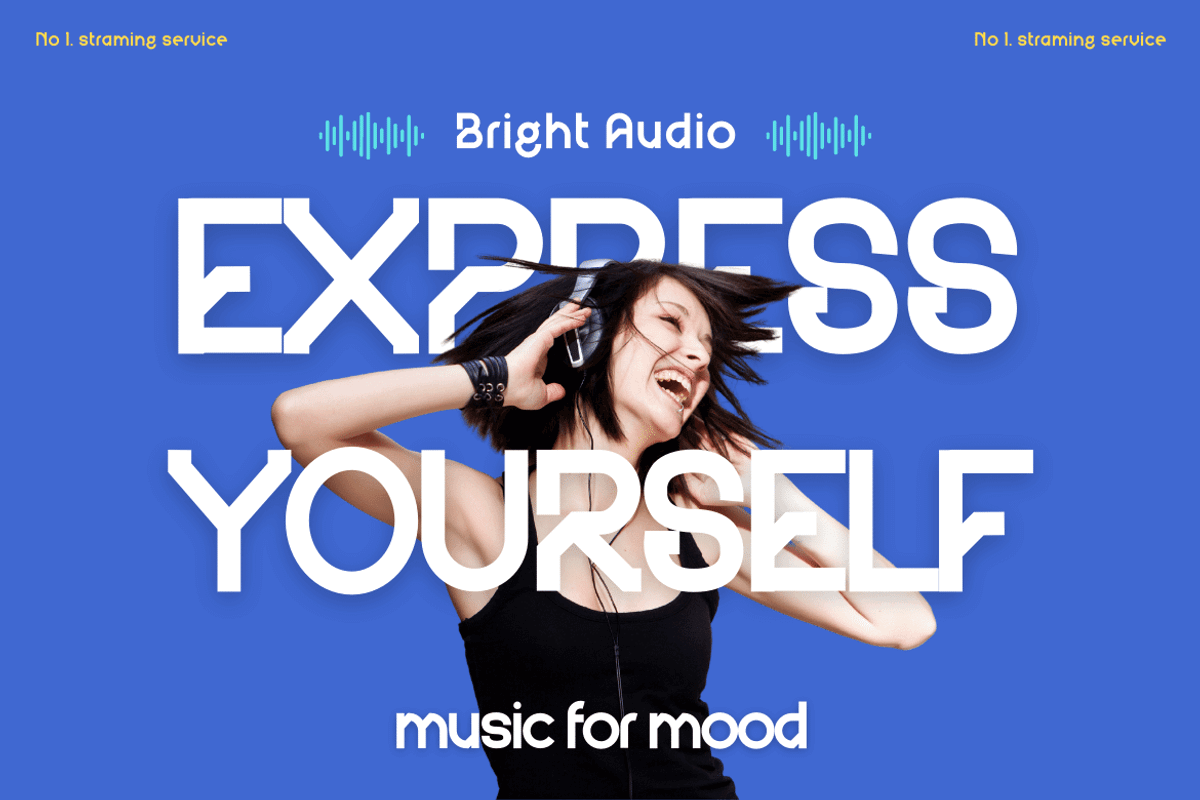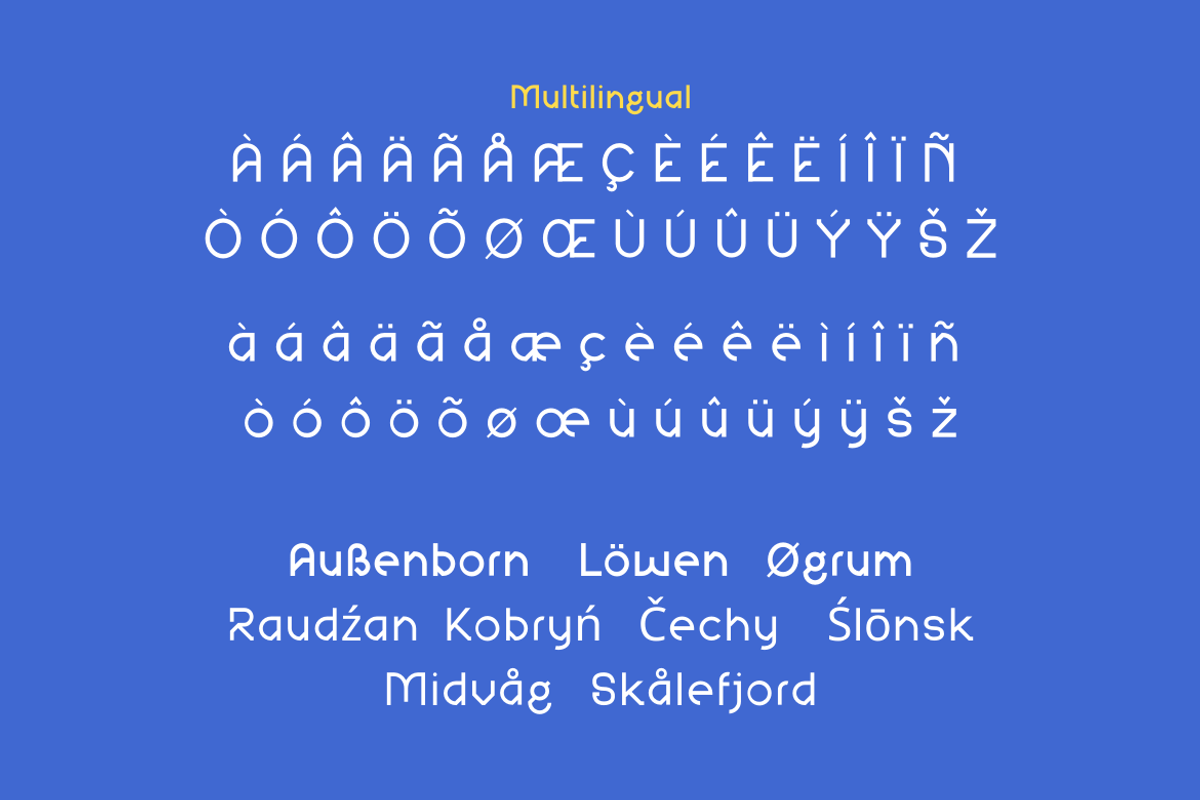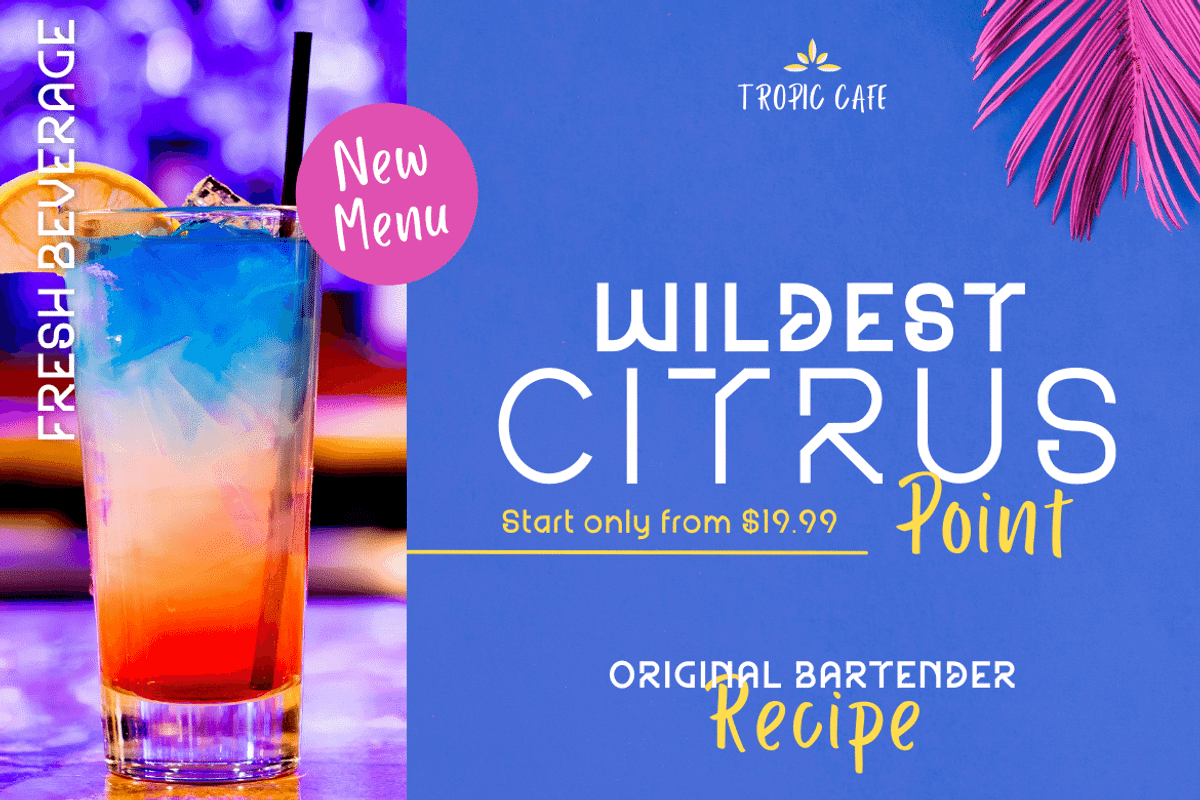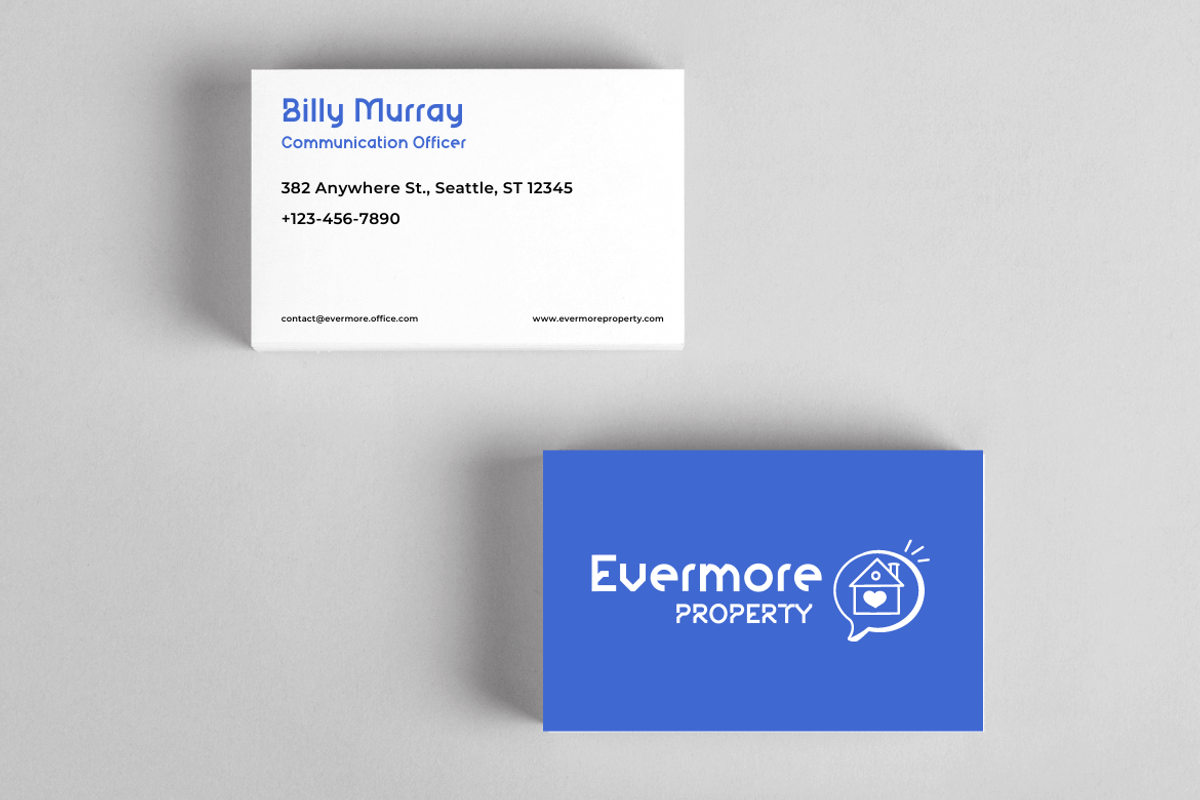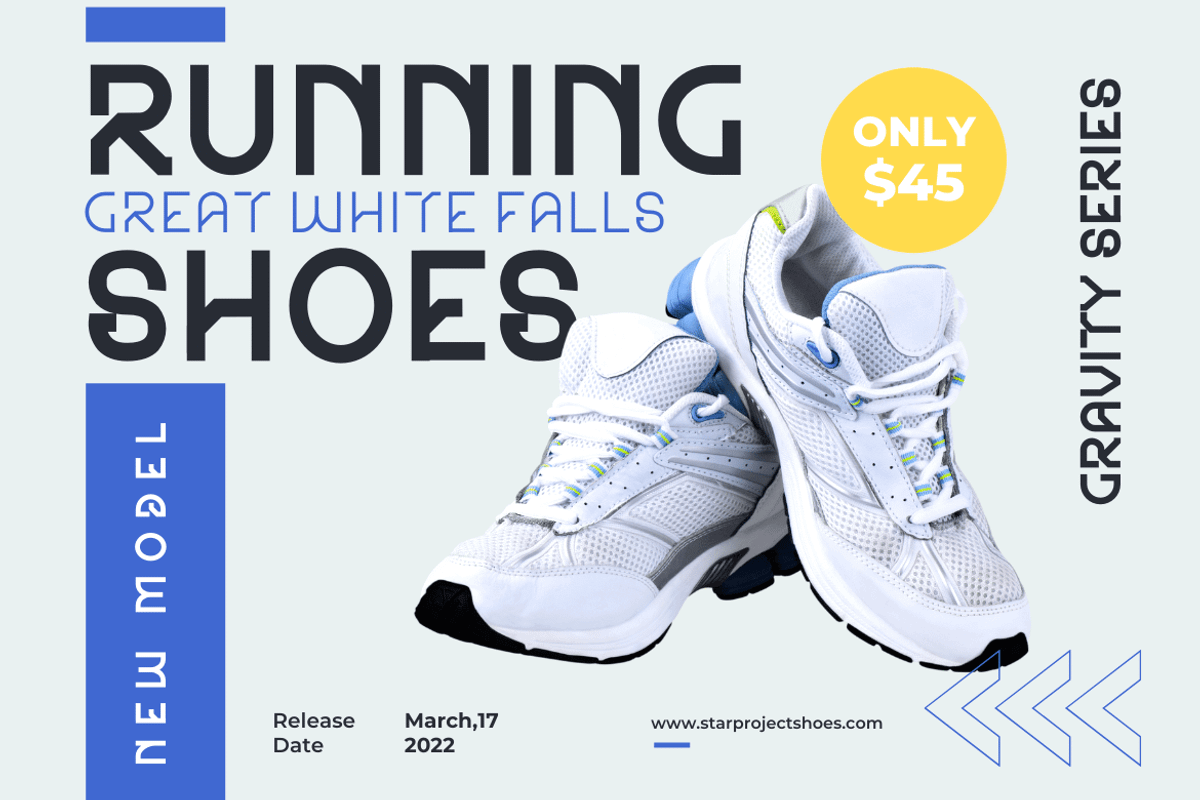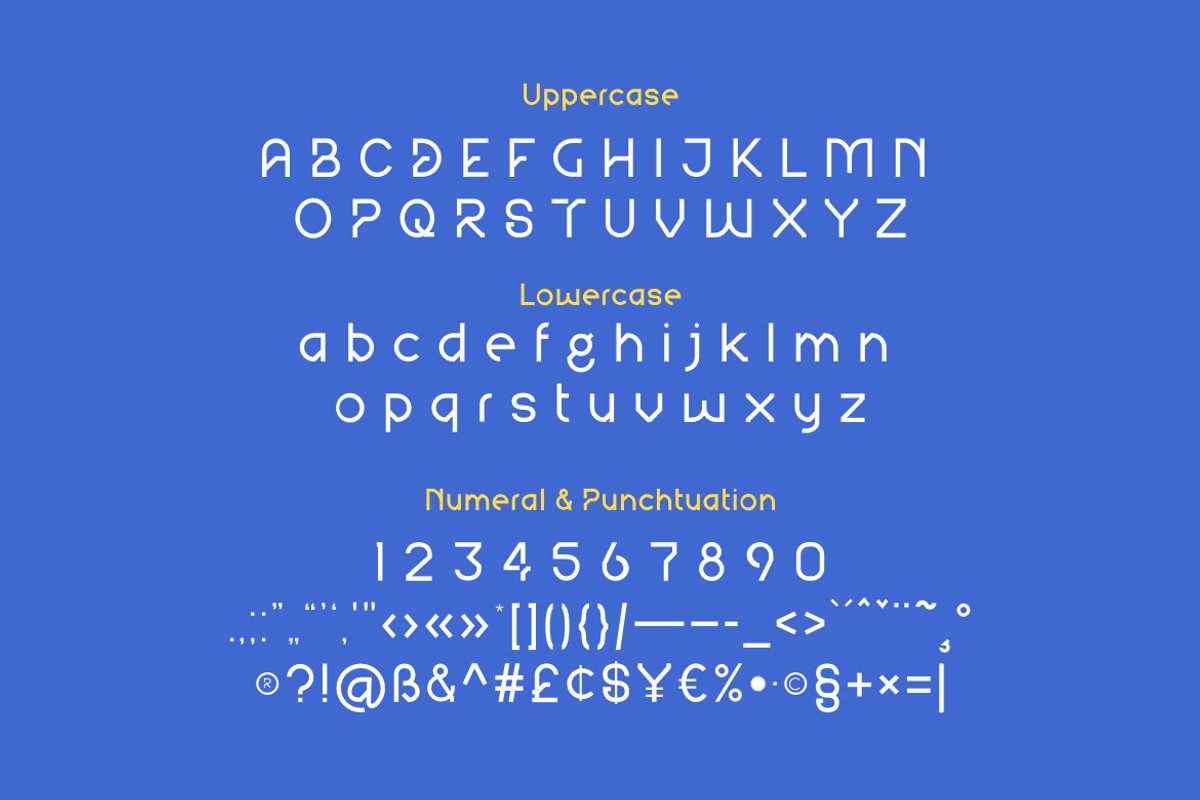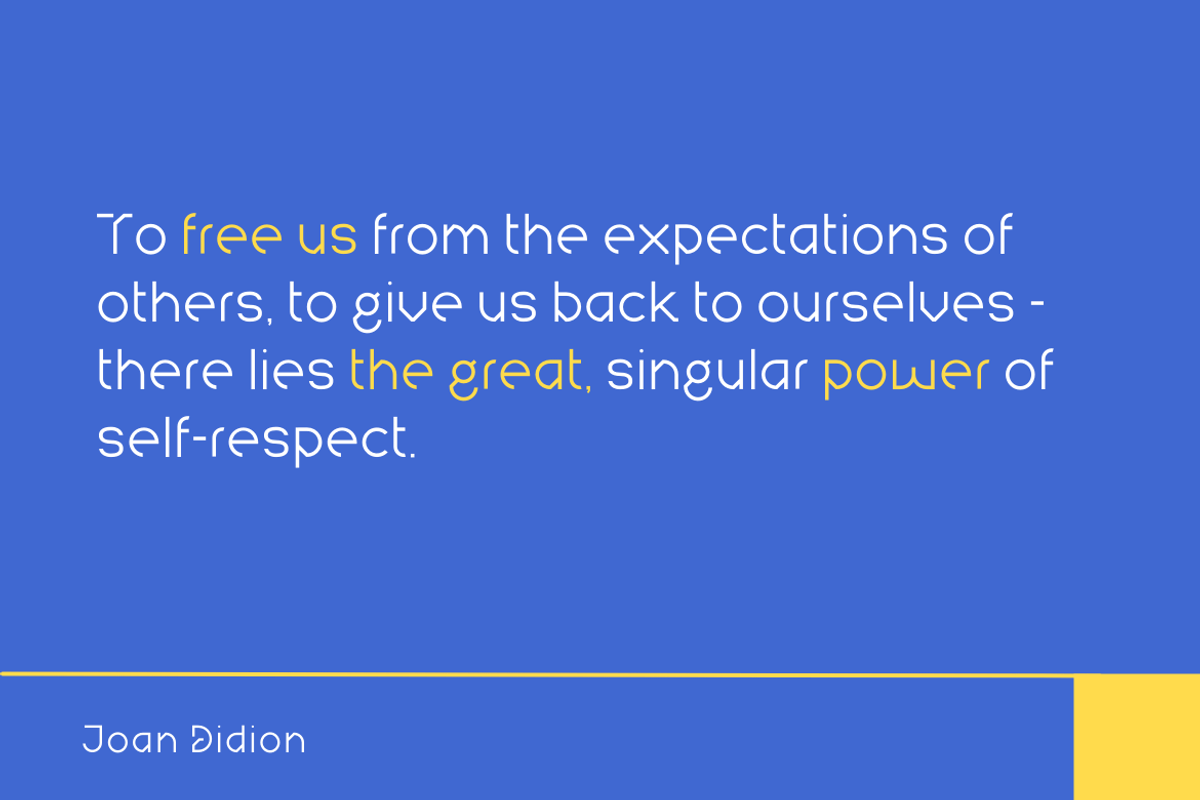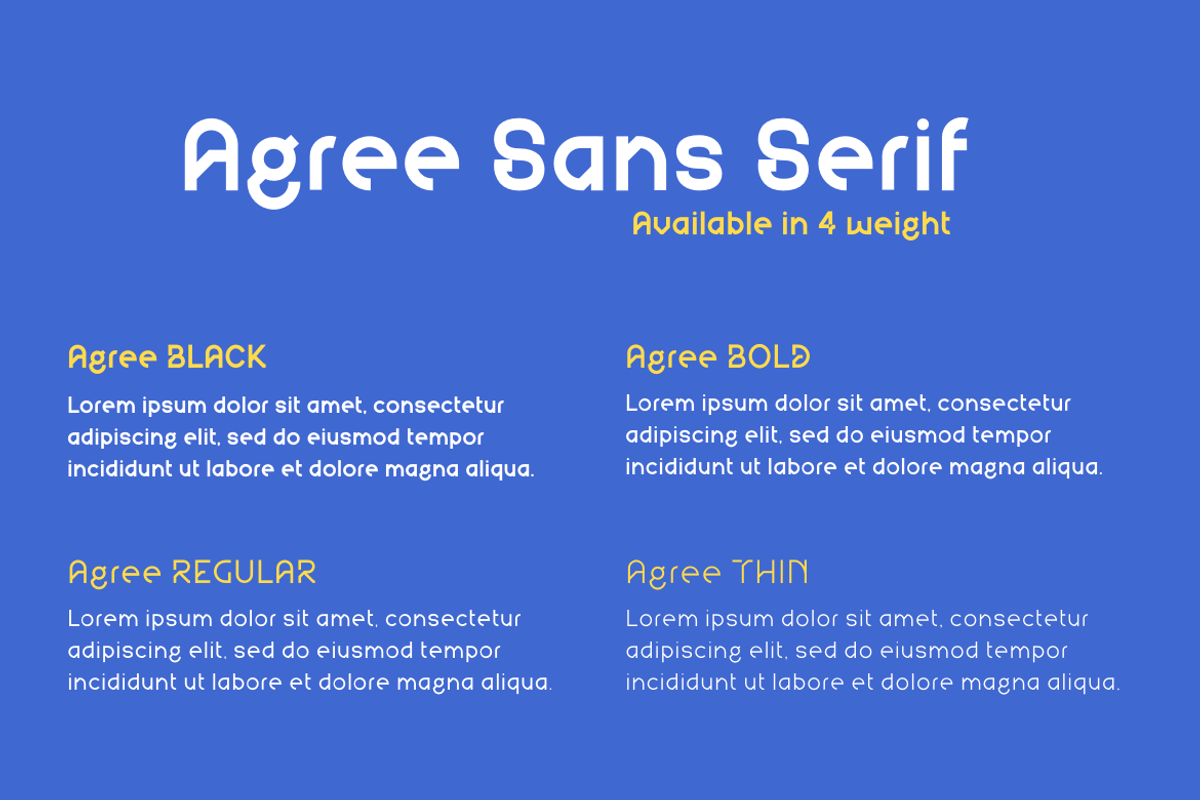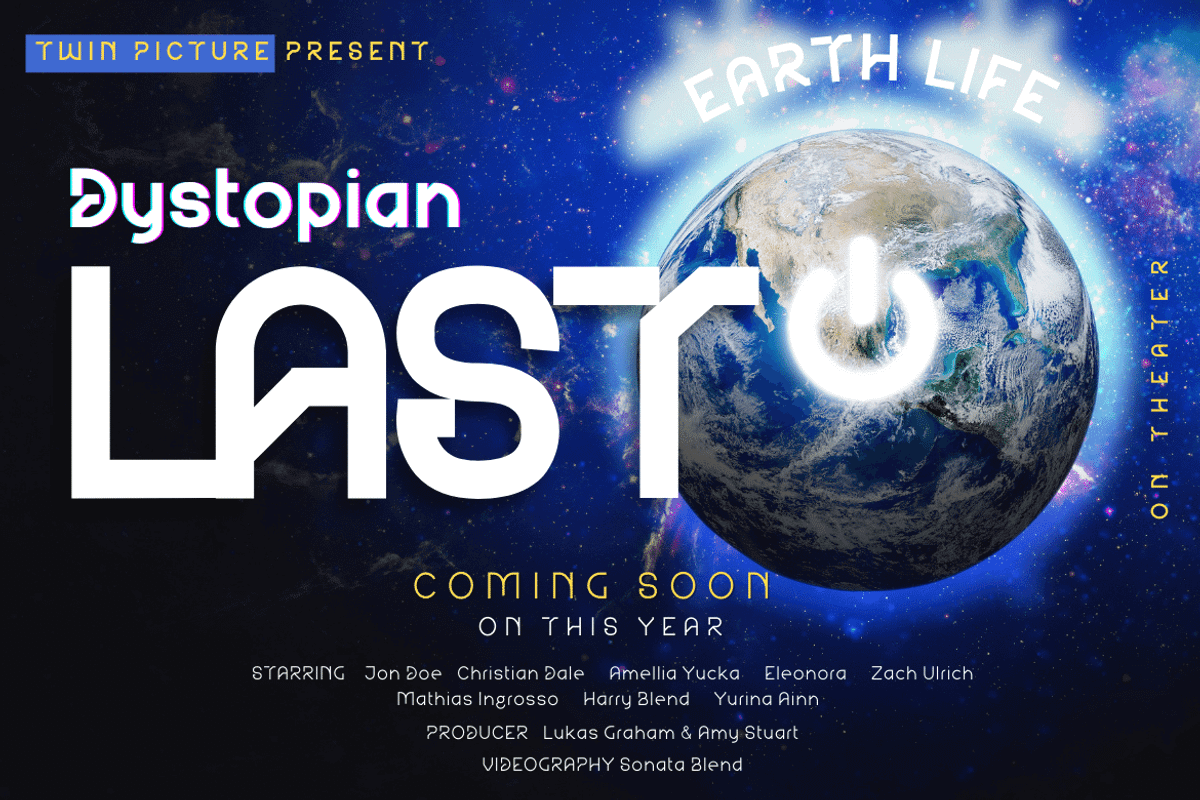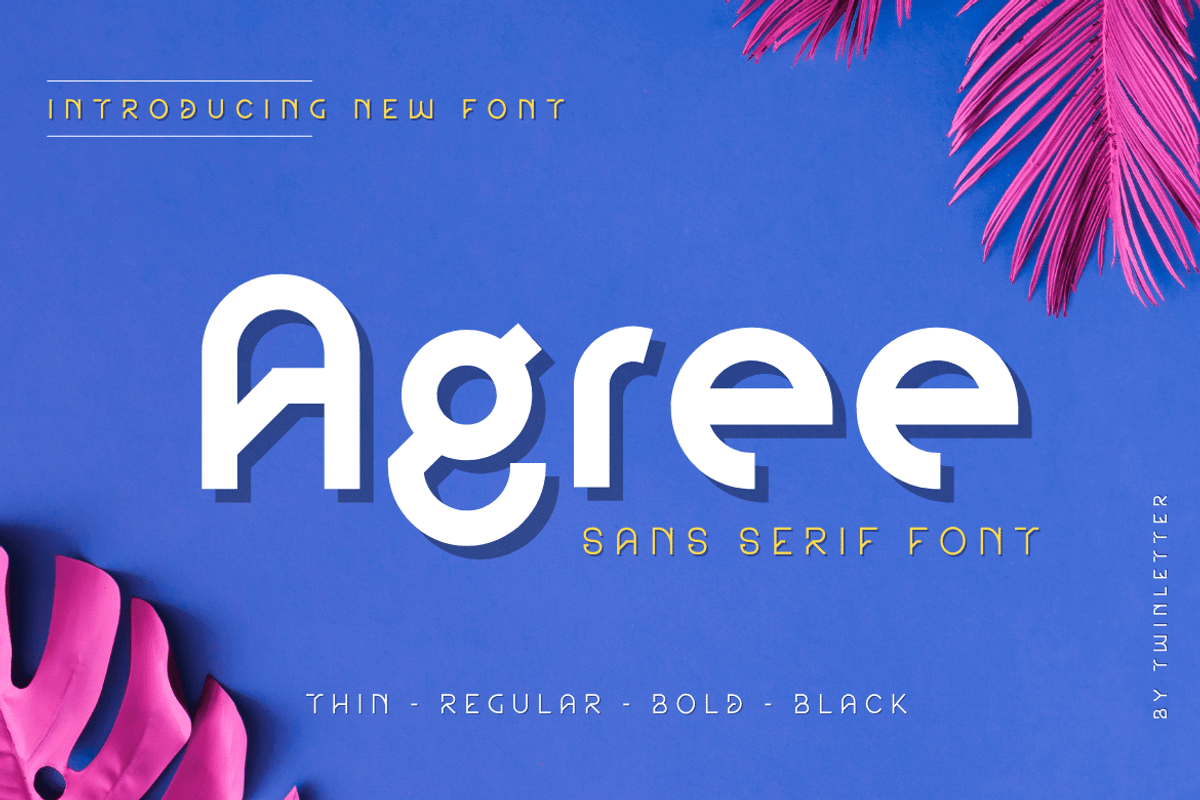
Agree
Agree is a san serif font that we made with a more modern and unique shape than most other fonts. If you use this font in your project, the graphic appearance of your project will be perfect and unique, attracting the attention of many people. With this typeface, your work will be made easier because your design will stand out from the crowd.
of course, your various design projects will be perfect and extraordinary if you use this font because this font is equipped with a font family, both for titles and subtitles and sentence text, start using our fonts for your extraordinary projects.